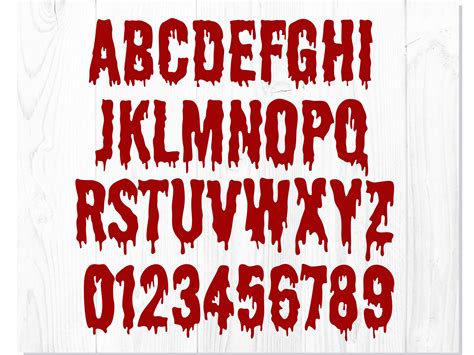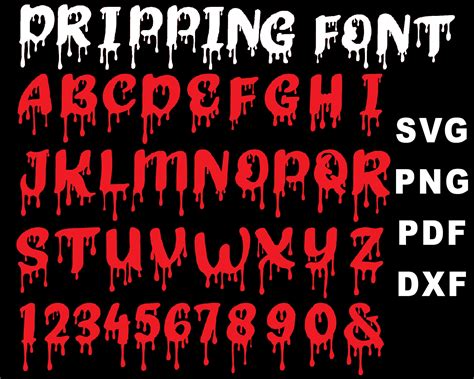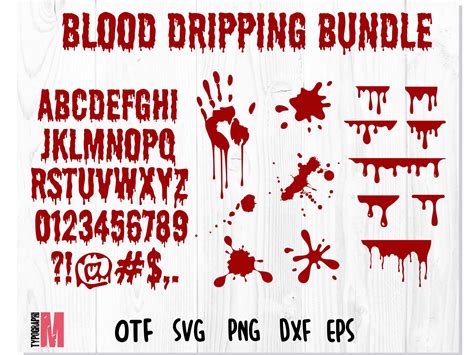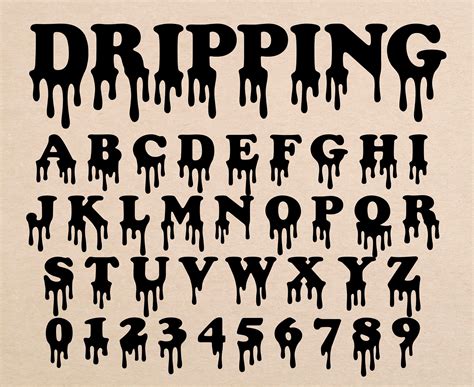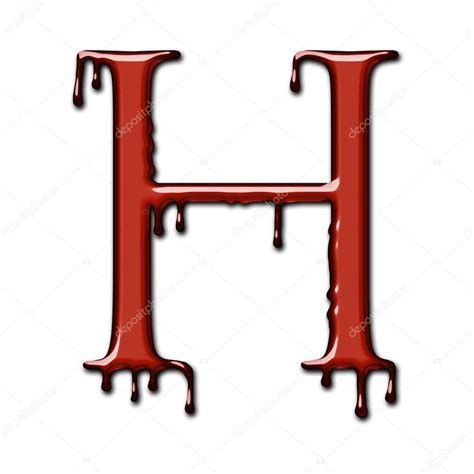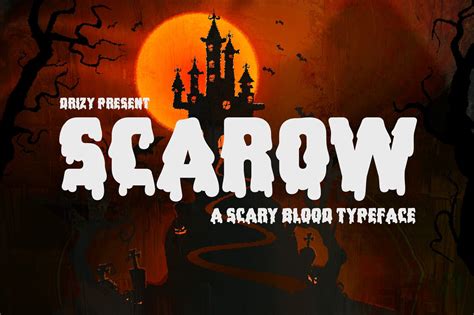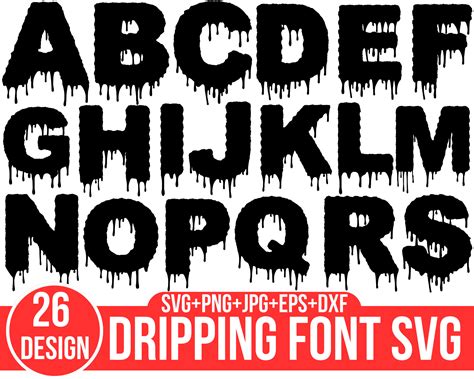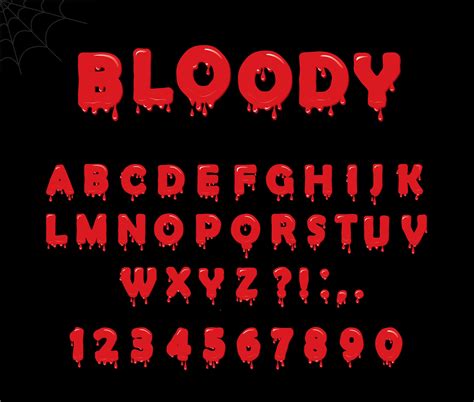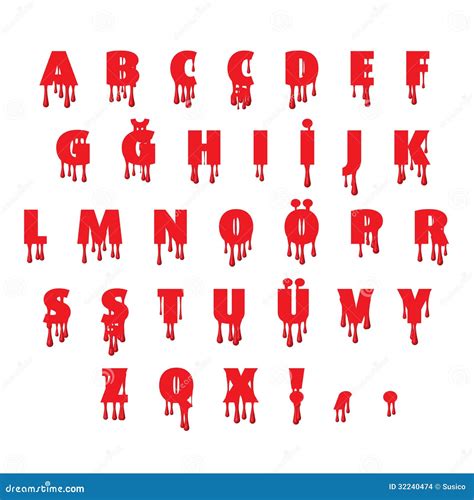
Typography plays a crucial role in graphic design, setting the tone and mood of any visual content. Among the myriad of fonts available, the Blood Dripping Font stands out for its unique and striking appearance. This font is particularly favored by designers looking to create a dark, eerie, or gothic aesthetic. Whether you're designing a horror-themed poster, a gothic logo, or a spooky invitation, the Blood Dripping Font can add a dramatic flair to your project.
Understanding the Blood Dripping Font
The Blood Dripping Font is characterized by its distinctive, dripping effect, which mimics the appearance of blood. This font is often used in horror movies, video games, and other media that aim to evoke a sense of dread or suspense. The font's design elements, such as the jagged edges and irregular shapes, contribute to its eerie and unsettling appearance.
One of the key features of the Blood Dripping Font is its versatility. Despite its dark and ominous look, it can be used in a variety of contexts beyond horror. For example, it can be employed in fashion design to create a bold, edgy look, or in advertising to grab attention and convey a sense of urgency. The font's unique style makes it a popular choice for designers who want to make a strong visual impact.
Applications of the Blood Dripping Font
The Blood Dripping Font is highly versatile and can be used in a wide range of applications. Here are some of the most common uses:
- Horror and Gothic Designs: This font is a staple in horror-themed projects, such as movie posters, book covers, and video game graphics. Its eerie and unsettling appearance perfectly complements the dark and mysterious themes of these genres.
- Fashion and Branding: The Blood Dripping Font can add a bold and edgy touch to fashion designs and branding materials. Its unique style can help brands stand out and create a memorable visual identity.
- Advertising and Marketing: In advertising, the Blood Dripping Font can be used to grab attention and convey a sense of urgency. Its striking appearance can make advertisements more noticeable and memorable.
- Event Invitations: For events with a dark or mysterious theme, such as Halloween parties or gothic-themed gatherings, the Blood Dripping Font can add a spooky and intriguing touch to invitations.
Designing with the Blood Dripping Font
When using the Blood Dripping Font in your designs, there are several factors to consider to ensure the best results. Here are some tips and best practices:
- Color Scheme: The Blood Dripping Font pairs well with dark and muted color schemes. Colors like black, deep red, and dark purple can enhance the font's eerie and unsettling appearance. Avoid using bright or pastel colors, as they can clash with the font's style.
- Background: Choose a background that complements the font's design. A solid black or dark background can make the font stand out, while a textured or patterned background can add depth and interest.
- Size and Spacing: The Blood Dripping Font is best used in larger sizes to ensure its details are visible. Adjust the letter spacing and line height to improve readability, especially for longer texts.
- Pairing with Other Fonts: If you need to pair the Blood Dripping Font with other fonts, choose complementary styles that do not overshadow its unique appearance. Serif or sans-serif fonts with a clean and simple design can work well.
Creating a Blood Dripping Font Effect
If you want to create a Blood Dripping Font effect in your designs, you can follow these steps:
- Choose a Base Font: Select a base font that has a similar style to the Blood Dripping Font. A bold, serif font with thick strokes can work well.
- Add Dripping Effects: Use graphic design software like Adobe Photoshop or Illustrator to add dripping effects to the font. You can create custom brushes or use existing ones to simulate the appearance of blood dripping.
- Adjust Colors: Change the color of the dripping effects to match the desired look. Deep reds and dark browns can create a realistic blood effect.
- Refine Details: Fine-tune the details of the dripping effects to ensure they look natural and cohesive with the base font. Adjust the opacity, blur, and other settings to achieve the desired result.
💡 Note: Creating a Blood Dripping Font effect from scratch can be time-consuming, but the results can be highly rewarding. Experiment with different techniques and tools to find the best approach for your design.
Examples of Blood Dripping Font in Use
To inspire your own designs, here are some examples of the Blood Dripping Font in use:
| Project Type | Description | Design Elements |
|---|---|---|
| Movie Poster | A horror movie poster featuring a dark, eerie background with the title in Blood Dripping Font. | Dark color scheme, textured background, bold title. |
| Book Cover | A gothic novel cover with the book title in Blood Dripping Font, surrounded by intricate illustrations. | Muted colors, detailed illustrations, dramatic title. |